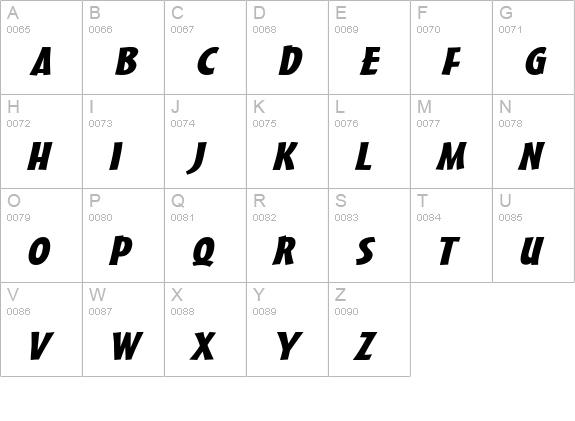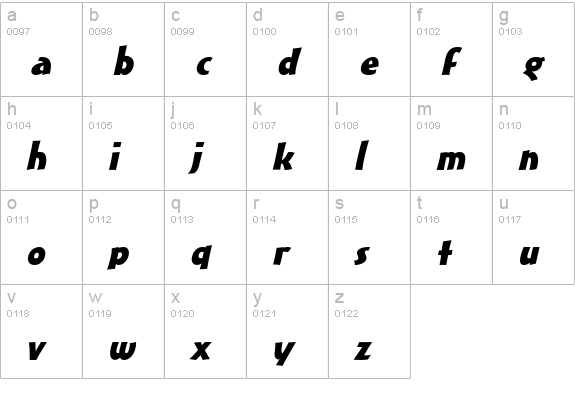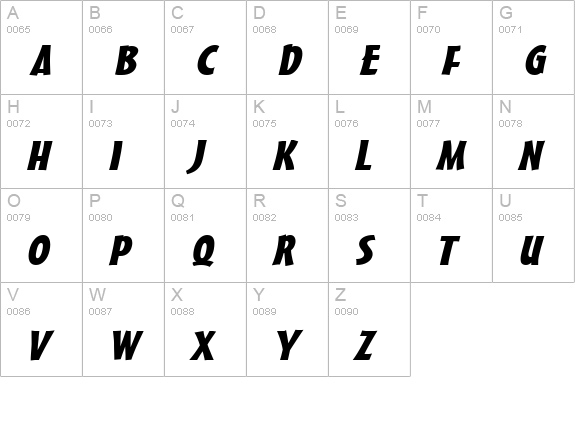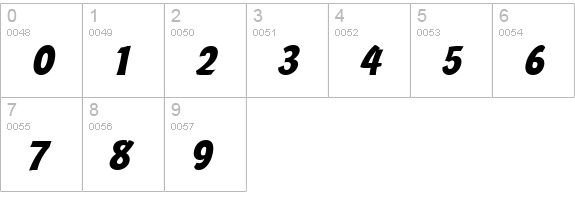
Massey Extended Italic is a distinctive, extended-width, italic variant in the Massey typeface family \xE2\x80\x94 well suited to design and typography projects.
Introducing Massey Extended Italic font, a stunning and versatile typeface that combines elegance with a touch of modernity. This font is the perfect choice for those seeking to make a bold statement while maintaining a sense of sophistication. With its sleek and elongated letterforms, Massey Extended Italic exudes a sense of confidence and professionalism. Its distinctive italic style adds a dynamic flair, making it ideal for a wide range of design purposes, from branding and advertising to editorial and digital projects. But what truly sets Massey Extended Italic apart is its accessibility. This font is freely available to download at FontsMarket.com, allowing designers, creatives, and enthusiasts to effortlessly incorporate it into their work without any financial strain. This generosity ensures that everyone can enjoy the beauty of Massey Extended Italic without limitations. Additionally, Massey Extended Italic offers a wide range of character sets, including multilingual support, making it suitable for global audiences. Its exceptional legibility ensures clear communication in any language, while its subtle details and organic curves provide a touch of elegance that captivates the eye. Whether you're designing a magazine spread, creating a logo, or enhancing your website's typography, Massey Extended Italic is the perfect choice to elevate your project to new heights. Its versatility and timeless appeal will leave a lasting impression on your audience, while its freely available download offers both convenience and affordability. Experience the power and beauty of Massey Extended Italic font today, and let your creativity soar to new horizons. Visit FontsMarket.com to download this exceptional font and unlock a world of design possibilities.